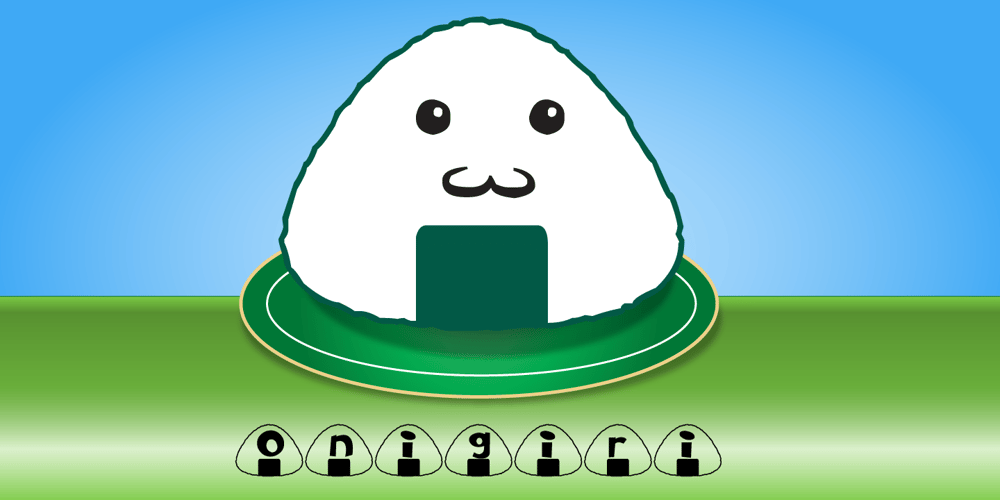
Onigiri Font Family was designed by Rob Barba and published by Megami Studios. Onigiri contains 1 styles and family package options. Cute and adorable, they’re…Onigiri! Designed to evoke the cuteness of Japanese mascots with the informality of script, these little riceballs o’ text are sure to please! Comes in Latin alphabet, hiragana, katakana and onigiri dingbats!